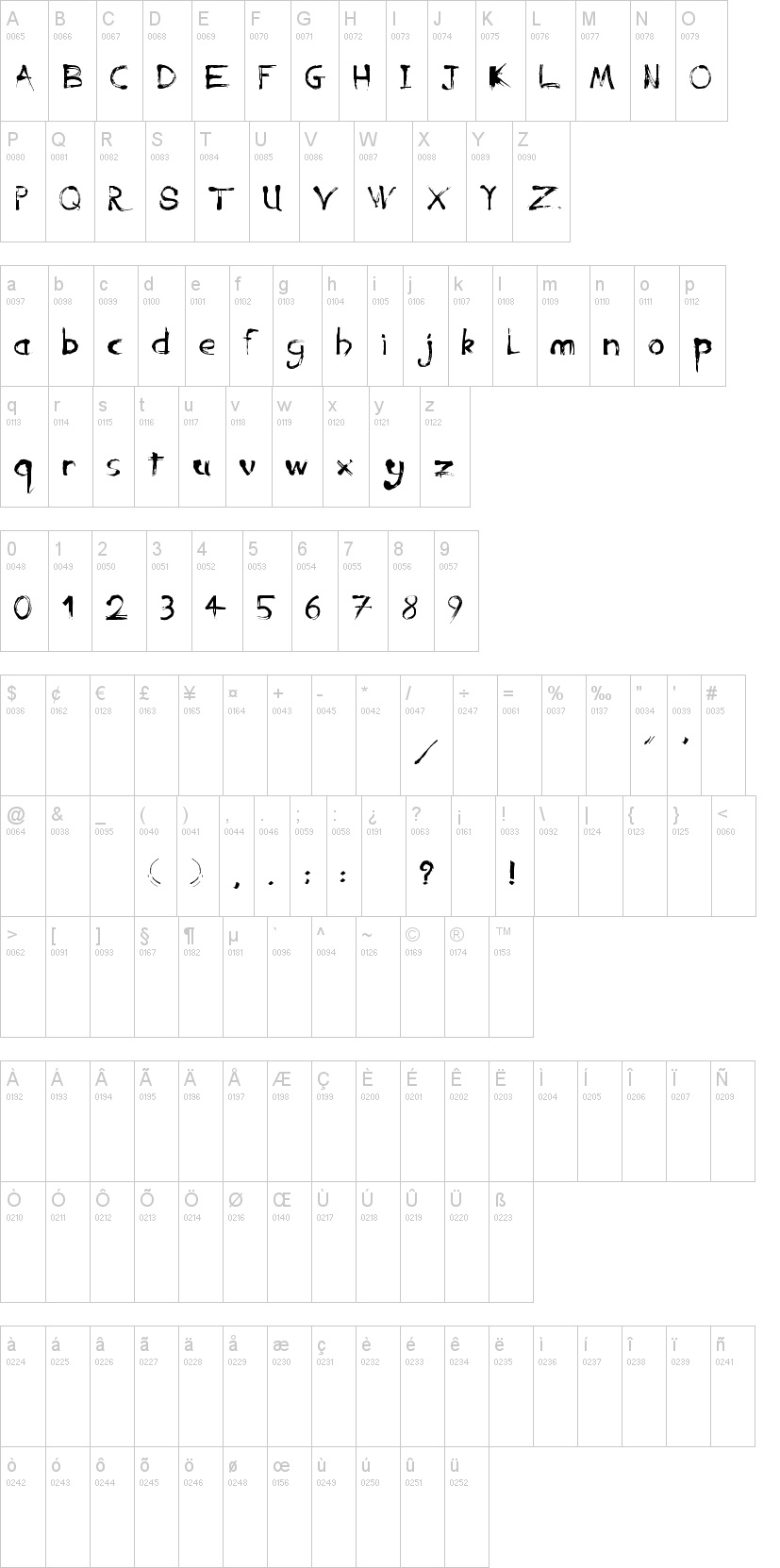
Note of the authorI made this Font at college as part of my graphic design course.
I created the letters with a homemade pen of my own design. It was made out of a 7-up can and gives nice wasting and sawtoothing.